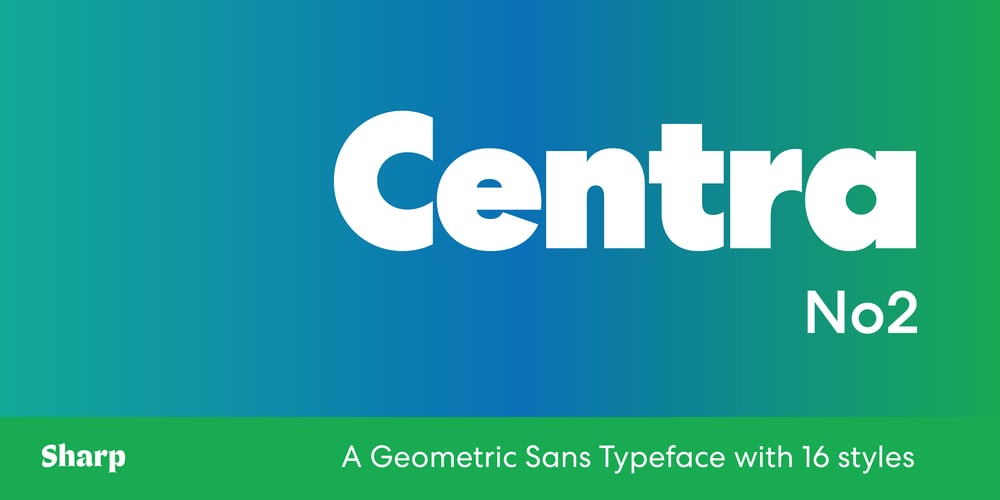
Centra No. 2 Font Family was designed by Josh Finklea and published by Monotype. Centra No. 2 contains 16 styles and family package options. Josh Finklea’s newest release, the Centra series, is a study in utility and restraint. In keeping with his approach of iteration and improvement to the traditional typographic tools of graphic design, Finklea’s latest work tackles one of typography’s most popular genres, the geometric sans. Instead of strict adherence to a formal geometric structure, Finklea’s approach to the Bauhaus model is largely aesthetic. While Futura and other historical models of the genre were designed as distilled typographic expressions of modernism, Centra acts as a contemporary typographic expression with modernist characteristics. Centra emphasizes texture and readability over conceptual rationale, attributes that can be frustratingly elusive when using many strictly geometric sans-serif typefaces.